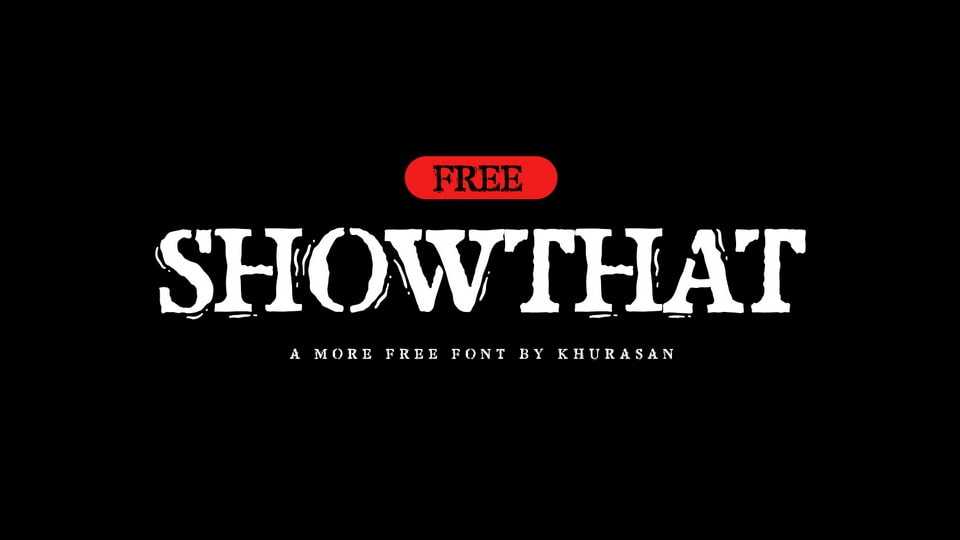
Download Showthat font, a display typeface that revels in the beauty of imperfection. Each character bears the marks of a bold and rebellious spirit, featuring rugged serifs and a deliberately distorted aesthetic that adds a raw and edgy quality.